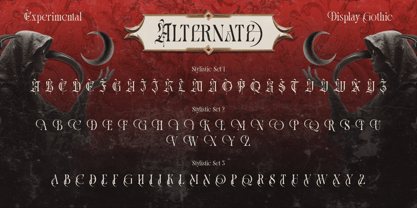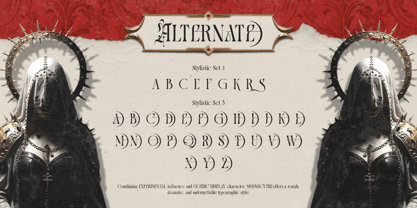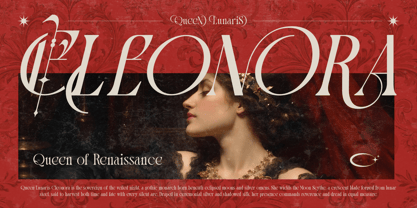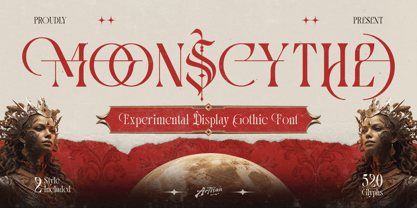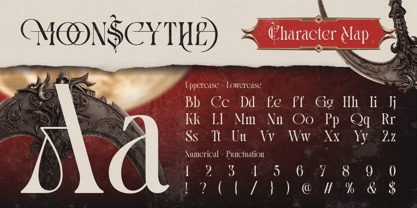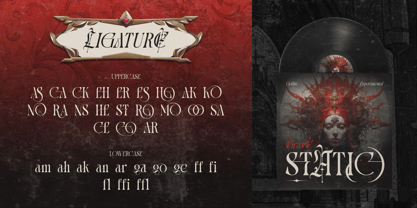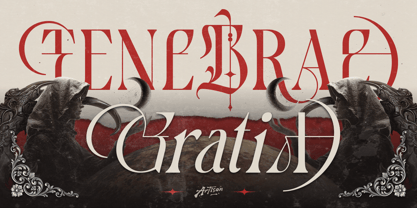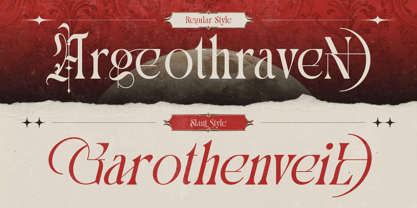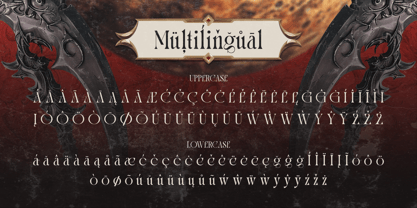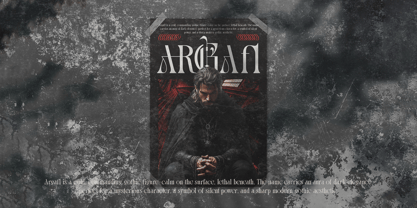
Moonscythe
The Moonscythe Font Family was designed by Meidy Meichico and published by Artisan Themes. Moonscythe contains 2 styles and family package options. More about this family
Moonscythe is a dramatic display gothic font inspired by the shape of a scythe — reimagined into crescent moon forms. Each alternate letter is crafted with curved, blade-like details that resemble a lunar scythe, creating a strong dark fantasy and celestial gothic atmosphere. The combination of sharp serif structure and moon-shaped curves gives this font a unique balance between elegance and danger — sacred yet powerful. The alternates are where the magic happens. The crescent-shaped strokes create a symbolic “moon blade” feel, making every word look mystical and dramatic. You can mix standard forms with the scythe alternates to create a custom gothic composition. Perfect for: Dark fantasy branding, Gothic logos, Album covers, Movie titles, Medieval themes, Occult & celestial projects, High-end dramatic editorials Features: A - Z set (Uppercase & Lowercase), Number, Punctuation, Alternates, Ligatures, Multilingual